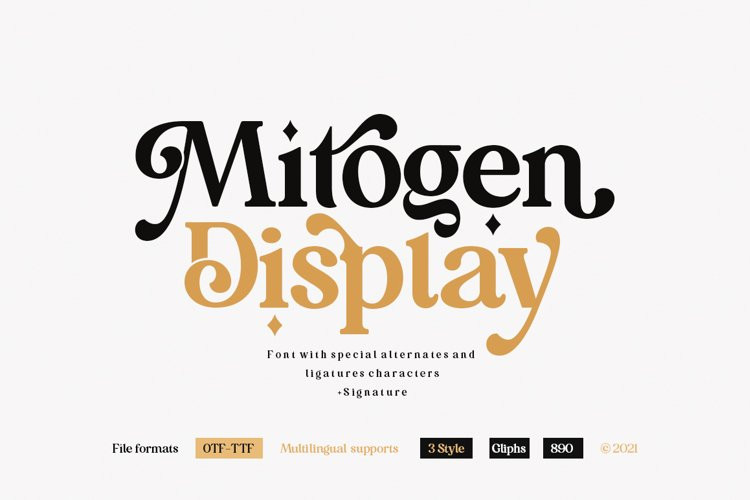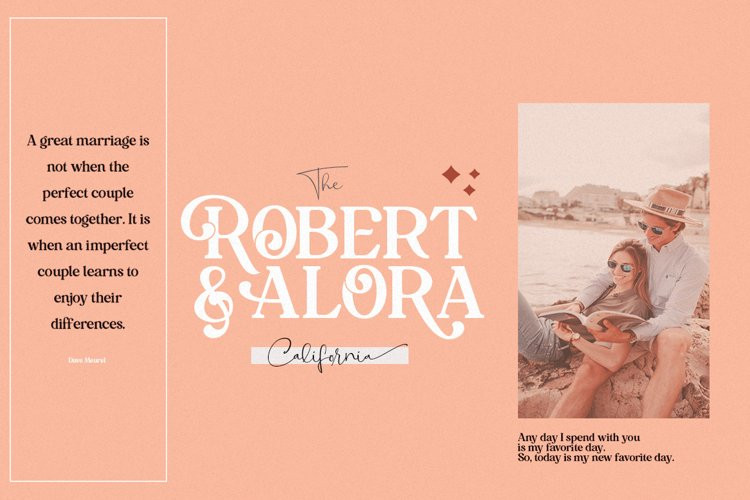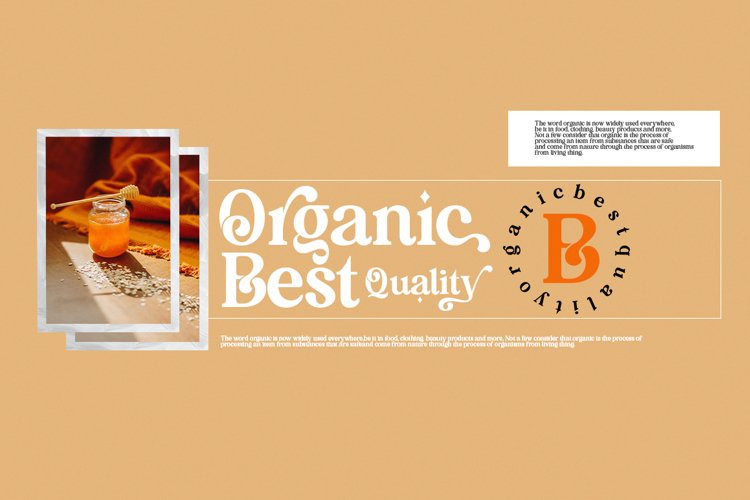
Mitogen Font
Mitogen FontMitogen Display is a very versatile font. Also available Mitogen Signature to help you mix and match it to fit your creative work in harmony. perfect for magazine images, to wedding invitations, to branding, poster design, and more.